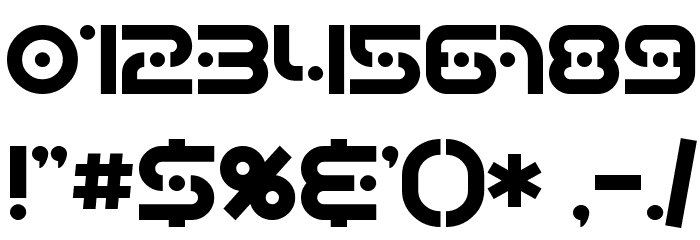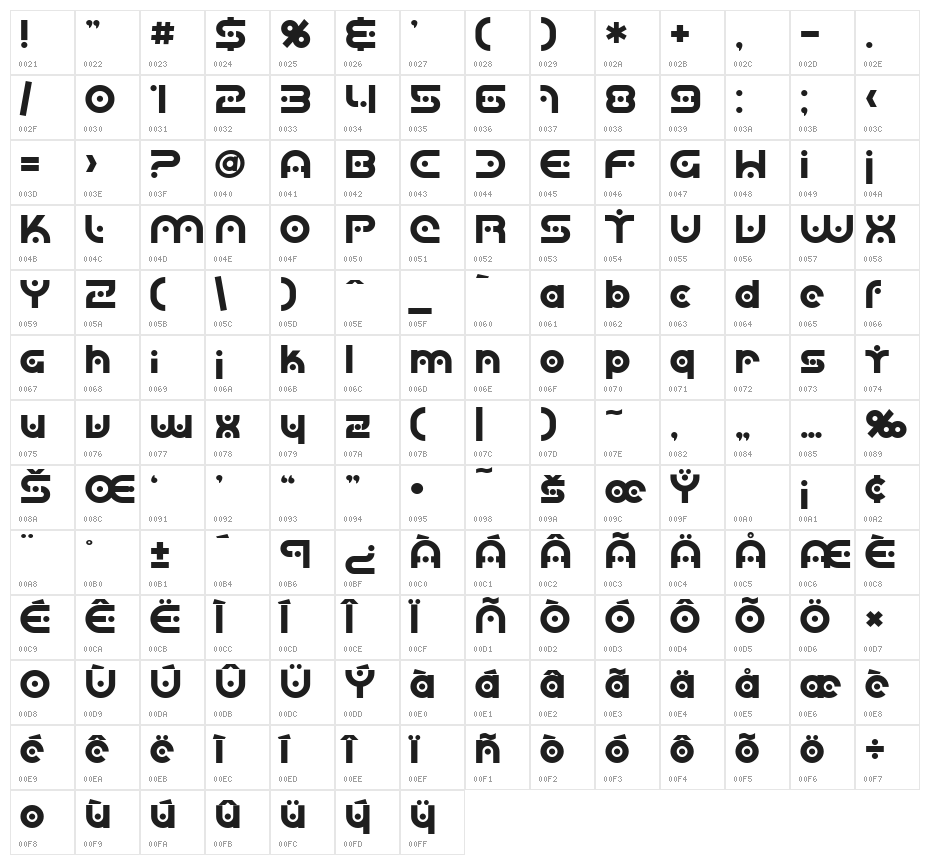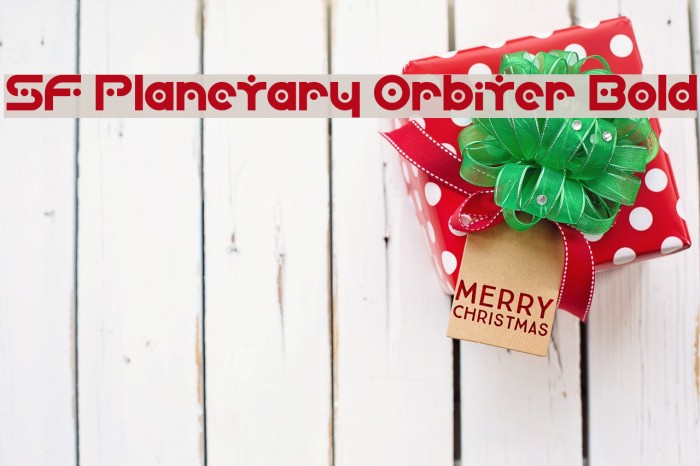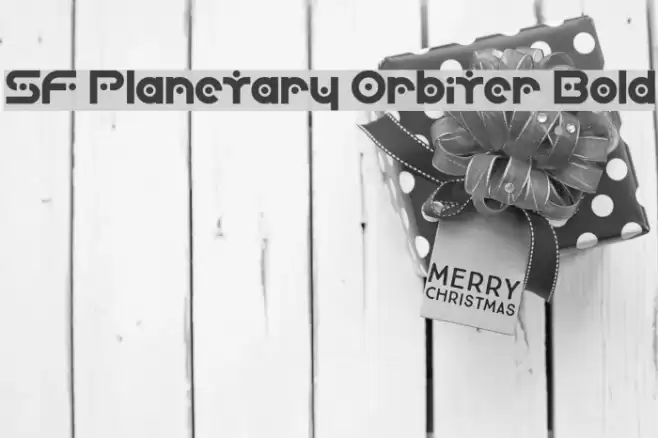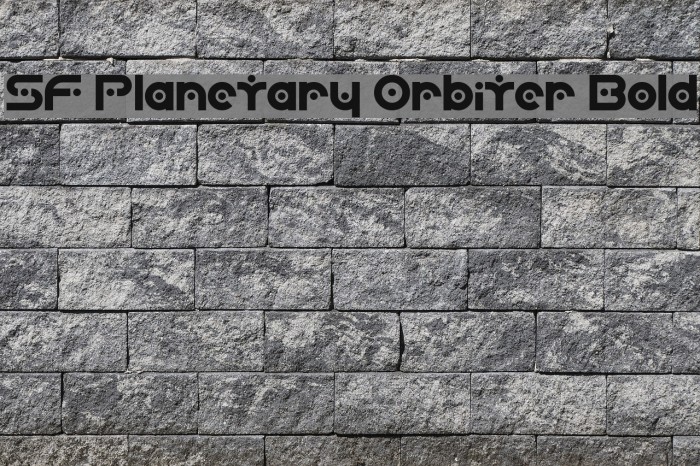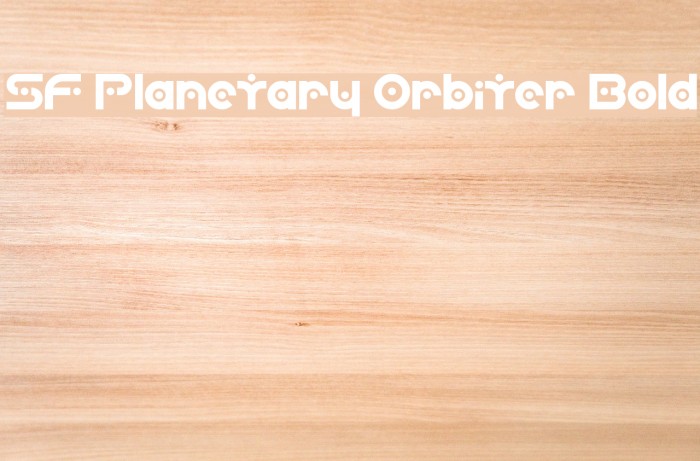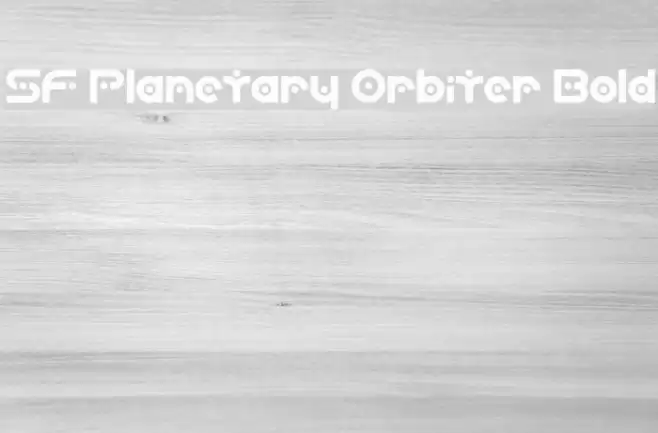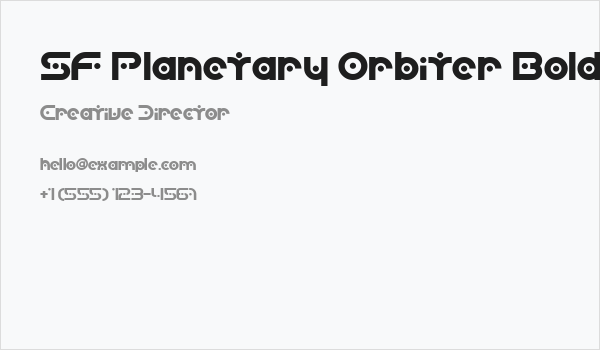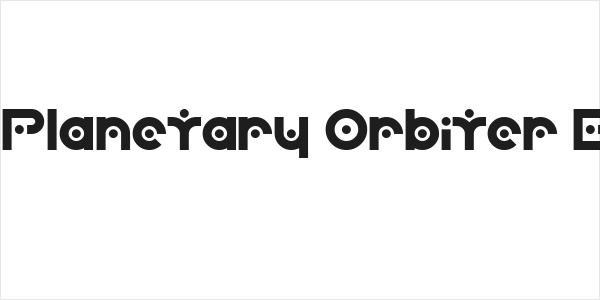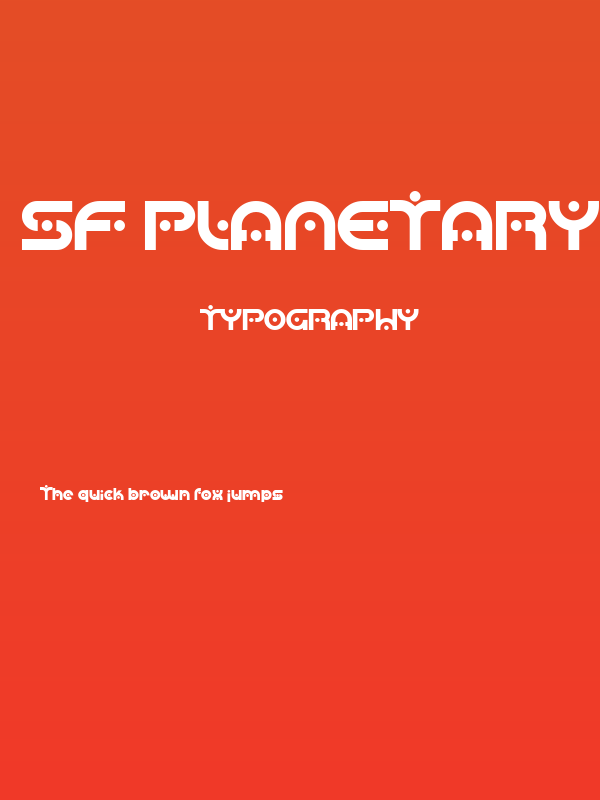
SF Planetary Orbiter Bold Font
SF Planetary Orbiter Bold Description
This font features a futuristic and geometric design, characterized by bold, rounded shapes and unique cutouts within each character. The letters have a consistent thickness, creating a uniform and cohesive appearance. The uppercase and lowercase letters maintain a similar style, with slight variations to distinguish them. The numerals and special characters follow the same design principles, ensuring a harmonious look across all elements. The font's distinct style makes it stand out, ideal for projects that require a modern and innovative touch.
| Proposed Projects | Ideal for sci-fi themed designs, technology branding, video game titles, and modern advertising. |